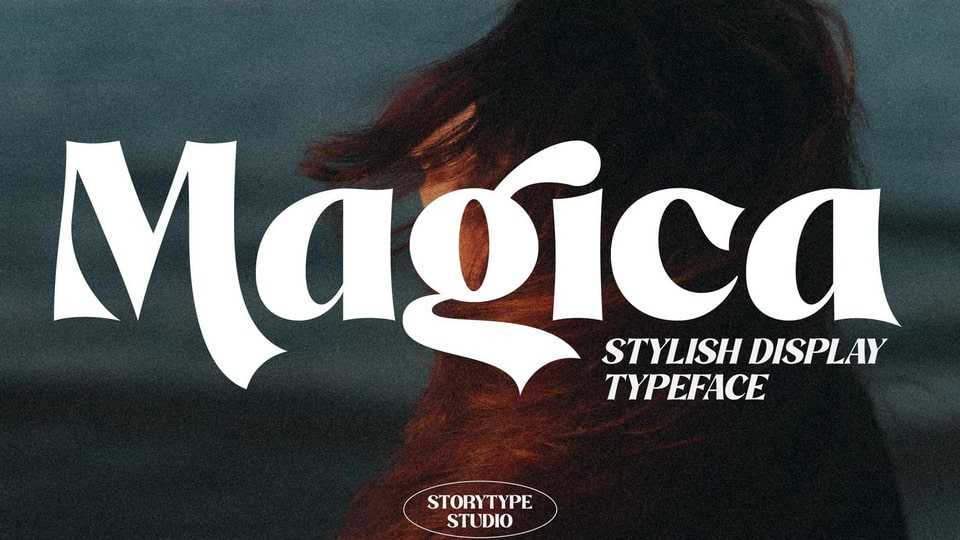
Download Magica font, an elegant and refined serif typeface with a unique style and modern look. Magica font is perfect for an elegant and luxury logo, book or movie title design, fashion brand, magazine, clothes, lettering, quotes, and so much more.